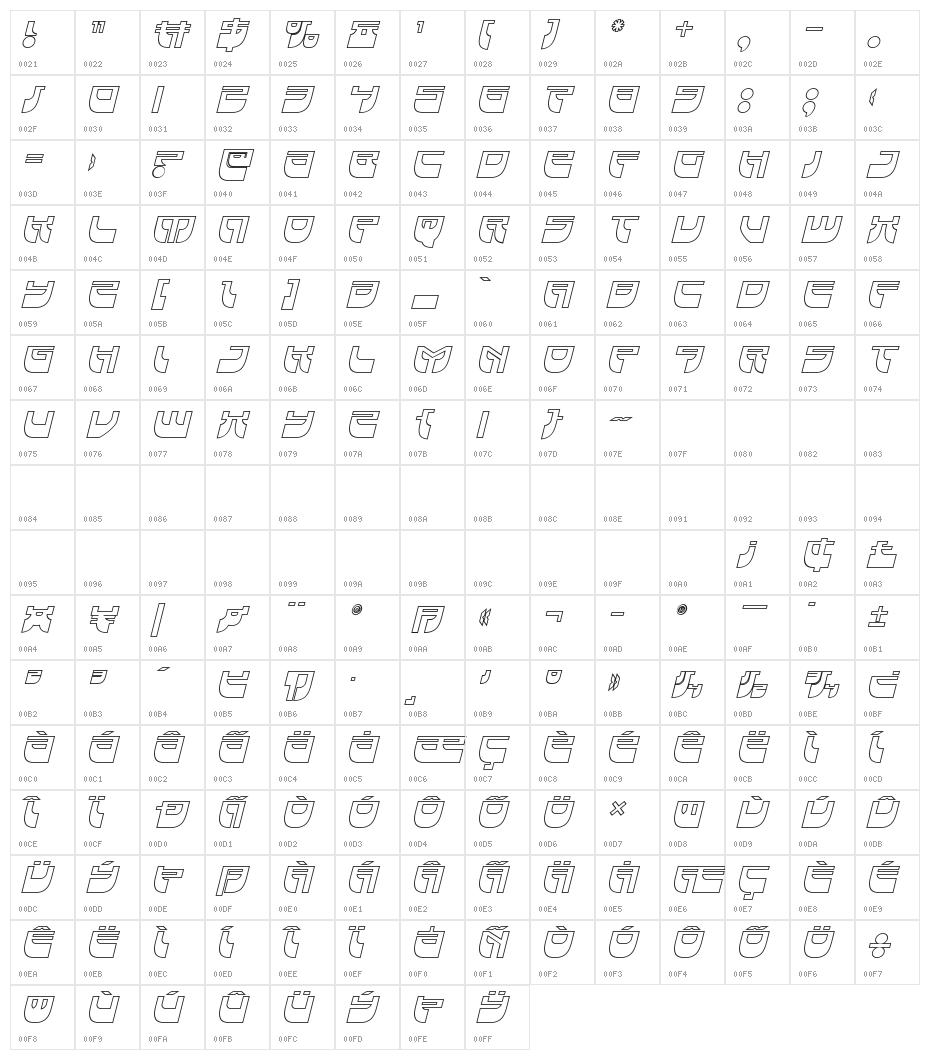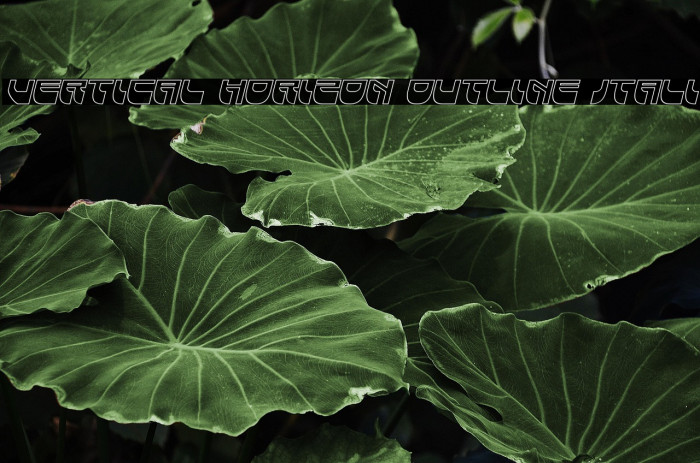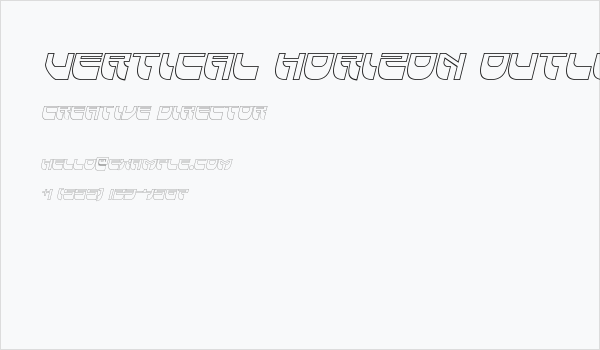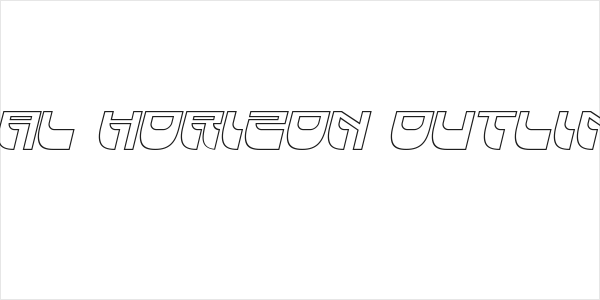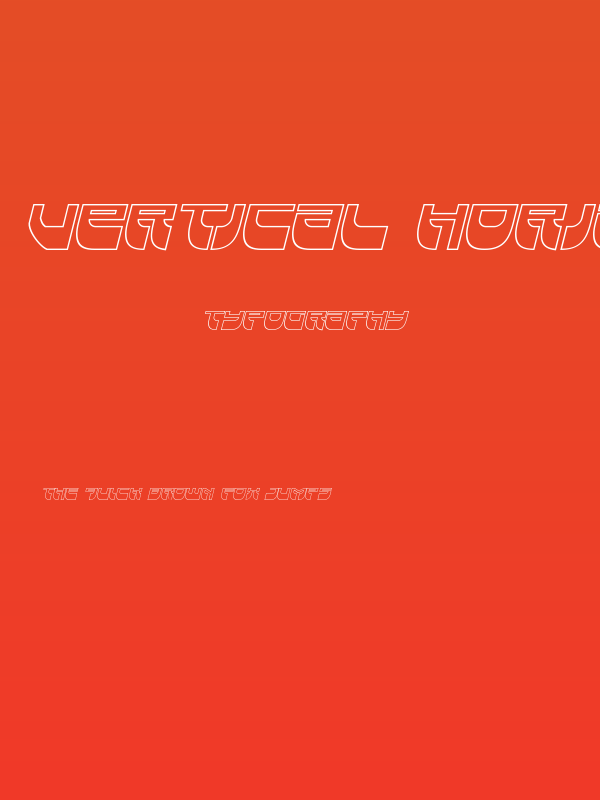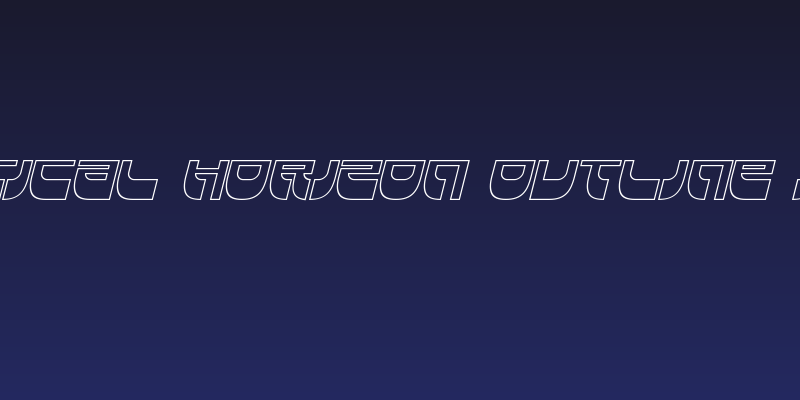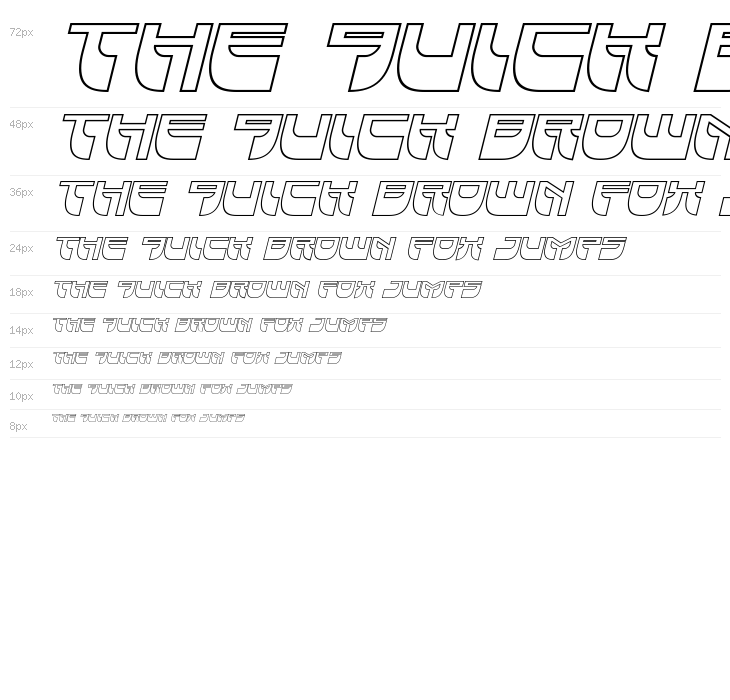
Vertical Horizon Outline Itali Font
Vertical Horizon Outline Itali Description
This font features a futuristic and geometric outline style, characterized by its sharp angles and clean lines. The uppercase and lowercase letters share a consistent design, emphasizing a modern aesthetic. The numbers and special characters maintain the same angular and outlined appearance, ensuring uniformity across all glyphs. The font's structure is bold and eye-catching, making it suitable for attention-grabbing designs. Its unique style is reminiscent of sci-fi themes, with a sleek and innovative look that stands out in digital and print media.
| Proposed Projects | Ideal for sci-fi themed posters, video game titles, tech branding, and futuristic event invitations. |